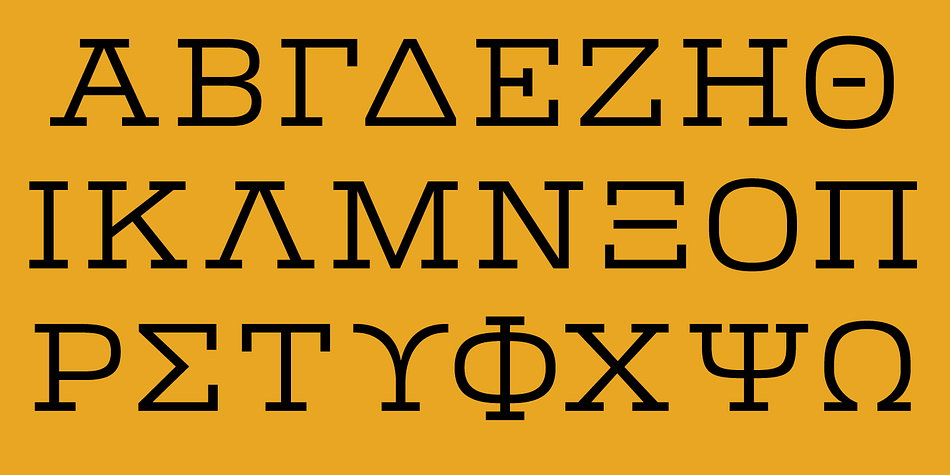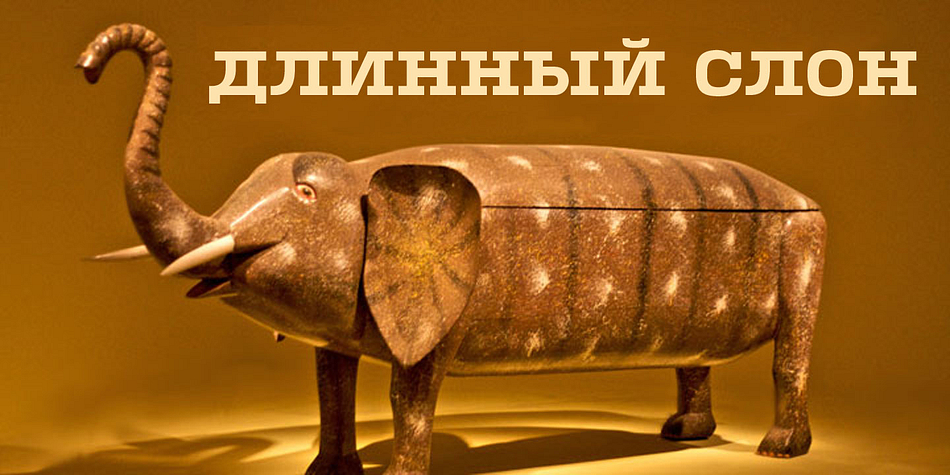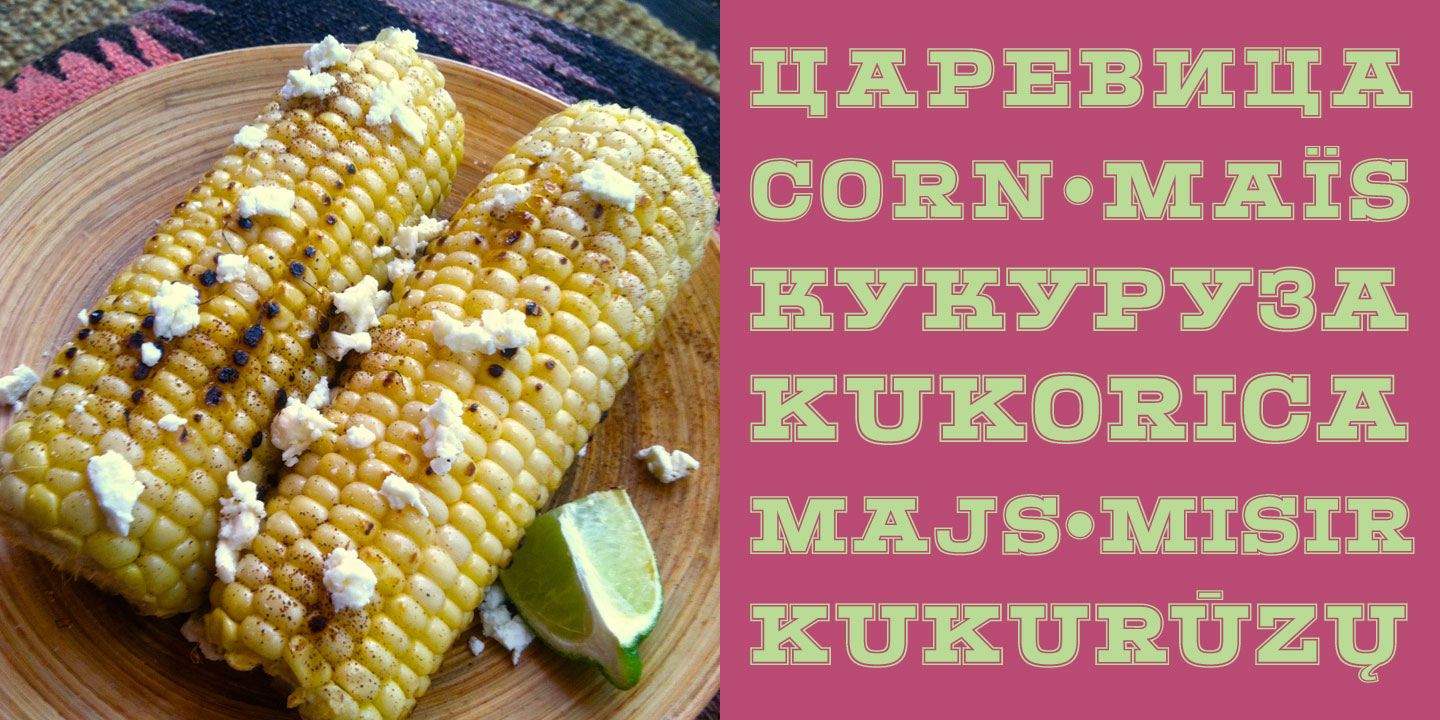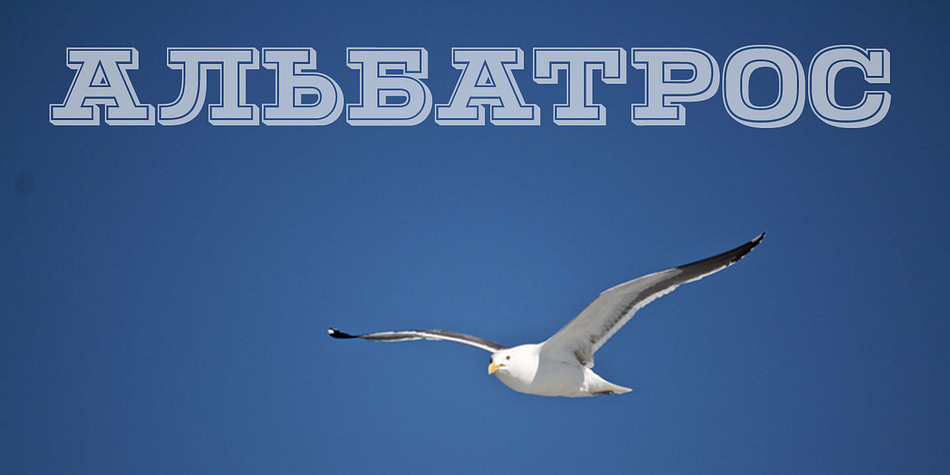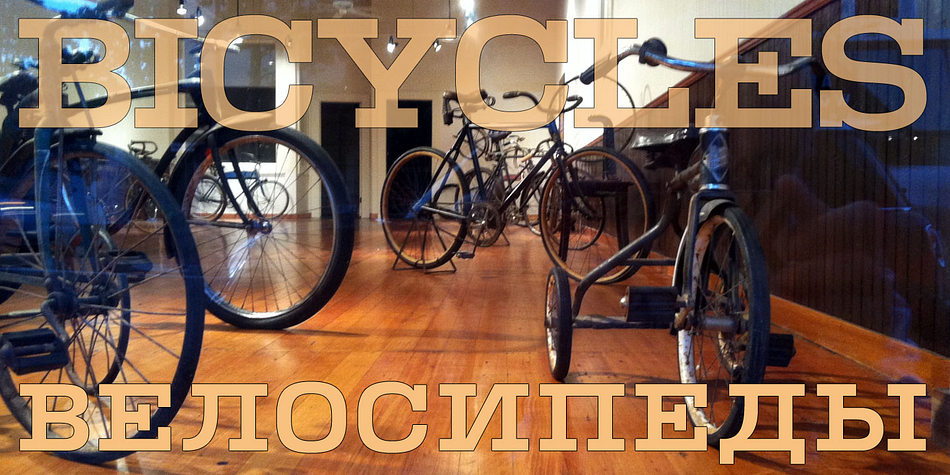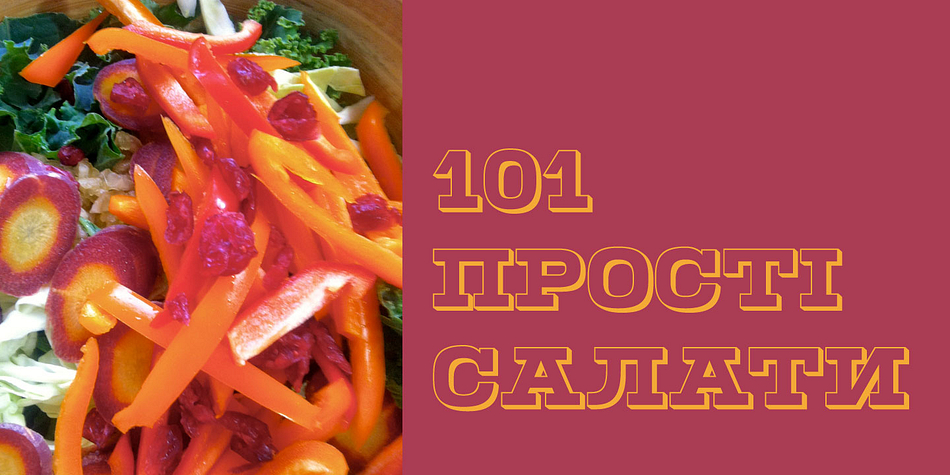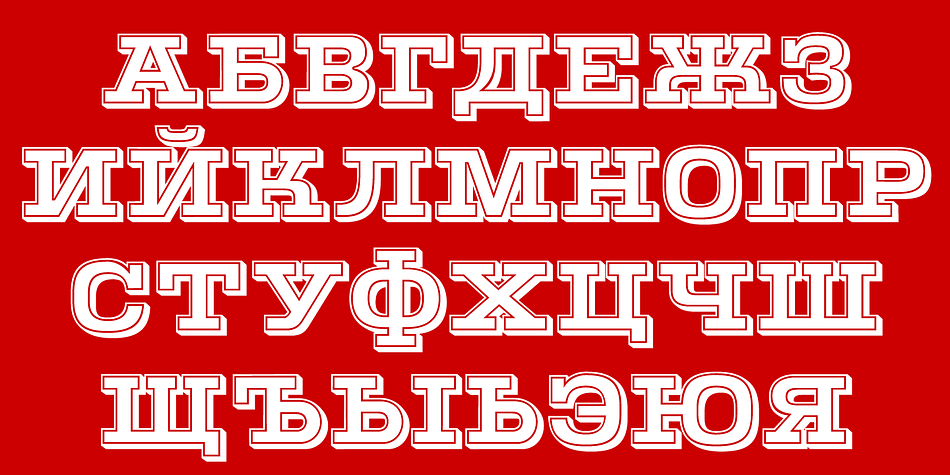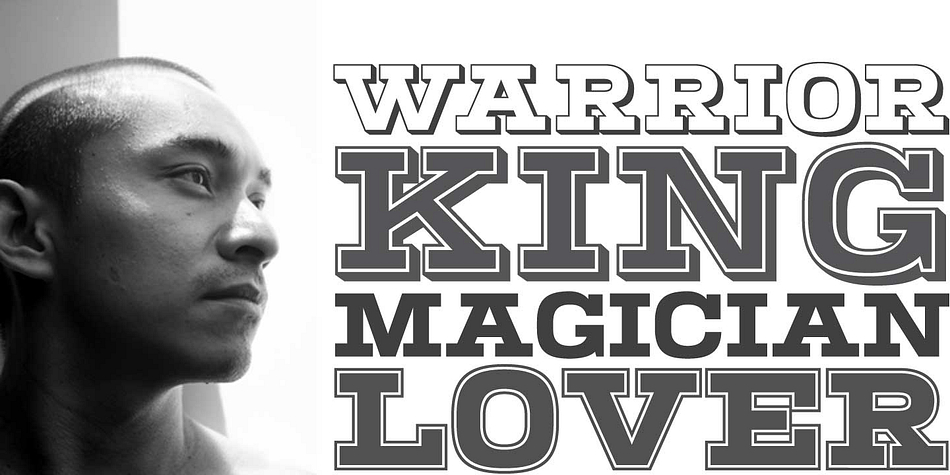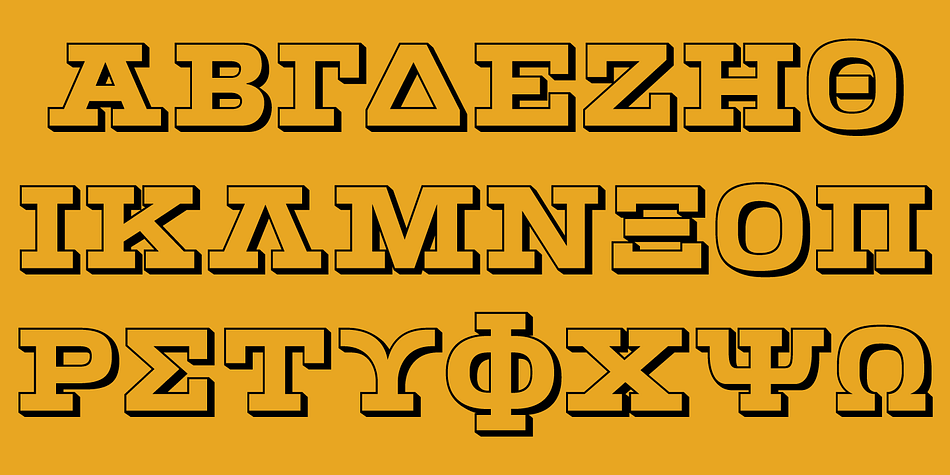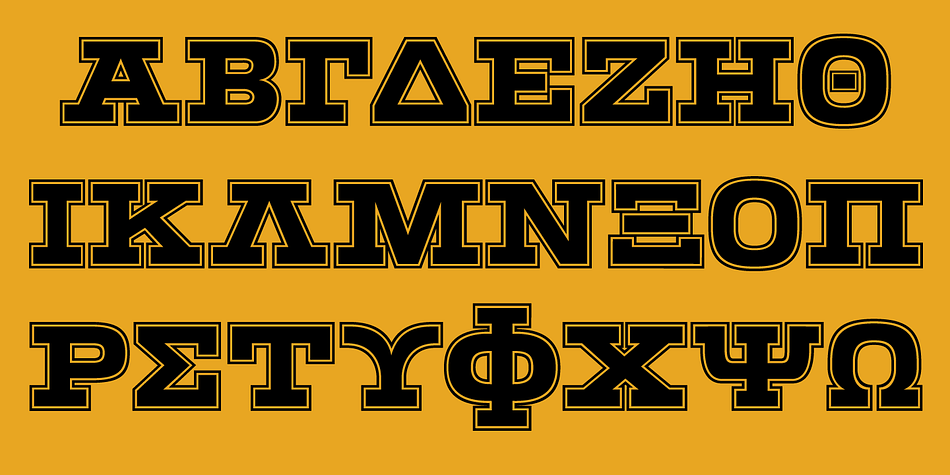
A structural slab serif design, CastleType’s Warrior is not simply well built, but possesses an air of attractive utility.
Designed by Jason Castle, Warrior is available in 10 styles, from a wiry light, to the robust Warrior Solid. The various members of the Warrior family can also be combined to achieve engaging typographic layering.